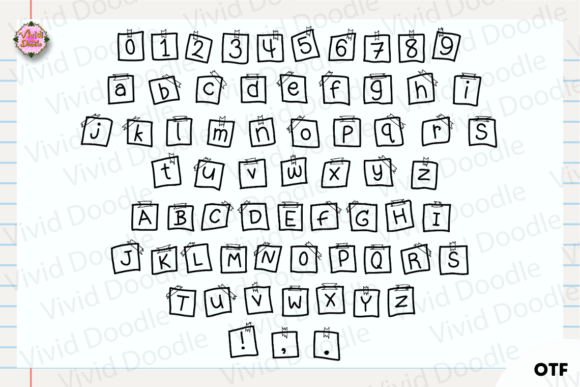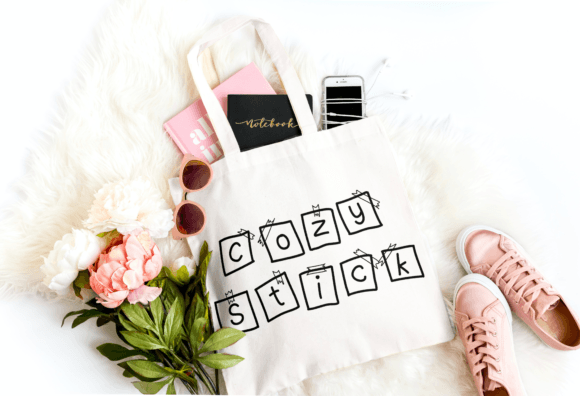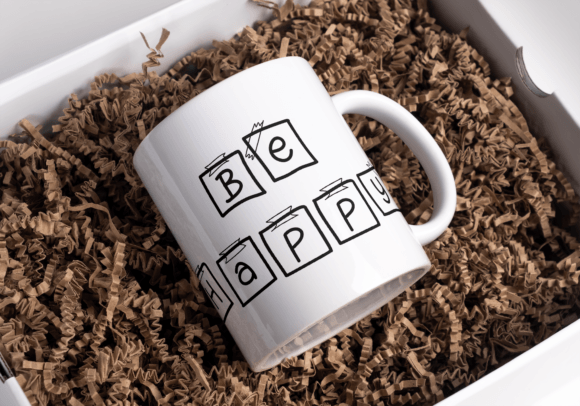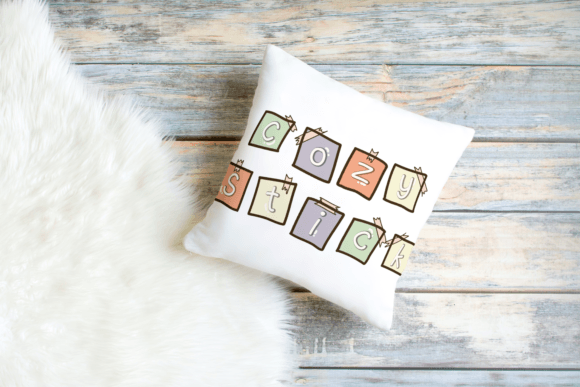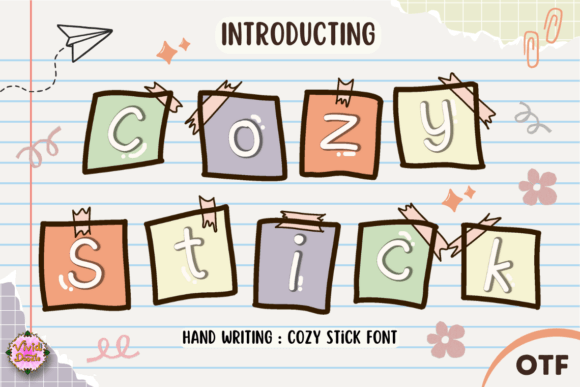
Introducing Cozy Stick Font: Your New Holiday Favorite
It’s the most wonderful time of the year! As the holiday season approaches, designers and crafters are on the lookout for unique and festive elements to add to their projects. We’re thrilled to introduce the Cozy Stick Font, a hand-lettered masterpiece that embodies the warmth and joy of the season. This exclusive font is designed to bring a touch of merriment to your creations, making it the perfect addition to your holiday toolkit.
A Festive Font Like No Other
The Cozy Stick Font is a newly crafted, hand-lettered font that exudes the cozy feeling of the holiday season. Its unique design is carefully thought out to evoke the warmth and festivity of this special time of year. With its enchanting and adaptable nature, this font is not only perfect for holiday projects but also versatile enough to elevate any endeavor. Whether you’re working on Christmas cards, holiday-themed crafts, or simply want to add a touch of seasonal cheer to your designs, the Cozy Stick Font is sure to impress.
What Makes Cozy Stick Font So Special?
- Hand-Lettered with Love: Each letter and character in the Cozy Stick Font is meticulously hand-lettered, giving it a personal and unique touch that’s hard to find in digital fonts.
- Festive yet Versatile: While it’s designed with the holiday season in mind, its adaptability means you can use it for a wide range of projects, from seasonal greeting cards to party invitations and beyond.
- Exclusive Design: As a specially created font for the holiday season, the Cozy Stick Font offers a fresh and unique look that will set your projects apart from the crowd.
Ideas for Using Cozy Stick Font
The possibilities are endless with the Cozy Stick Font. Here are a few ideas to get you started:
- Holiday Greeting Cards: Add a personal touch to your Christmas, Hanukkah, or New Year’s greeting cards with this charming font.
- DIY Crafts: From scrapbooking to crafting holiday decorations, the Cozy Stick Font can add a festive touch to all your DIY projects.
- Social Media Graphics: Stand out on social media with festive graphics and posts that showcase the Cozy Stick Font.
- Party Invitations: Create memorable and festive invitations for your holiday parties with this enchanting font.
Tips for Getting the Most Out of Cozy Stick Font
To truly experience the magic of the Cozy Stick Font, consider the following tips:
- Experiment with Colors: While the font itself is festive, experimenting with different colors can further enhance the holiday feel of your projects.
- Pair with Complementary Fonts: Don’t be afraid to pair the Cozy Stick Font with other fonts to create interesting contrasts and visual appeal.
- Play with Sizes: The Cozy Stick Font looks great in various sizes. Experiment with different sizes to add emphasis and create visual hierarchy in your designs.
The Cozy Stick Font is more than just a font – it’s a way to infuse your projects with the magic and joy of the holiday season. Its unique, hand-lettered design, combined with its versatility and ease of use, makes it an essential tool for designers and crafters alike. Whether you’re creating holiday-themed projects or simply looking for a fresh and festive touch, the Cozy Stick Font is sure to become your new favorite. So why wait? Dive into the holiday spirit and experience the merriment of the season with our enchanting Cozy Stick Font.